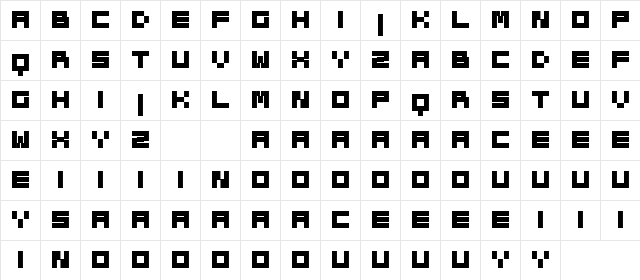
Block-Rock Regular
Design Context for Block-Rock Typeface
Block-Rock takes a measured approach to typography — its balanced proportions and neutral character make it a reliable workhorse for both digital and print work.